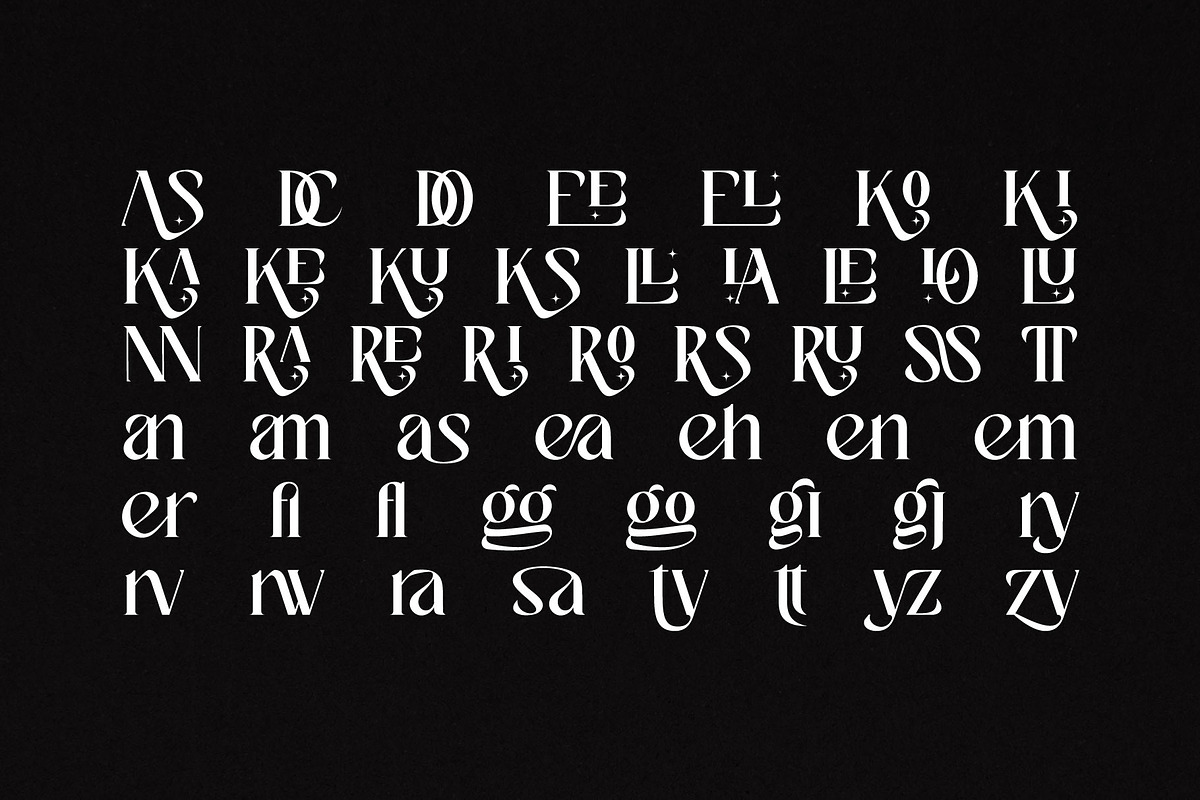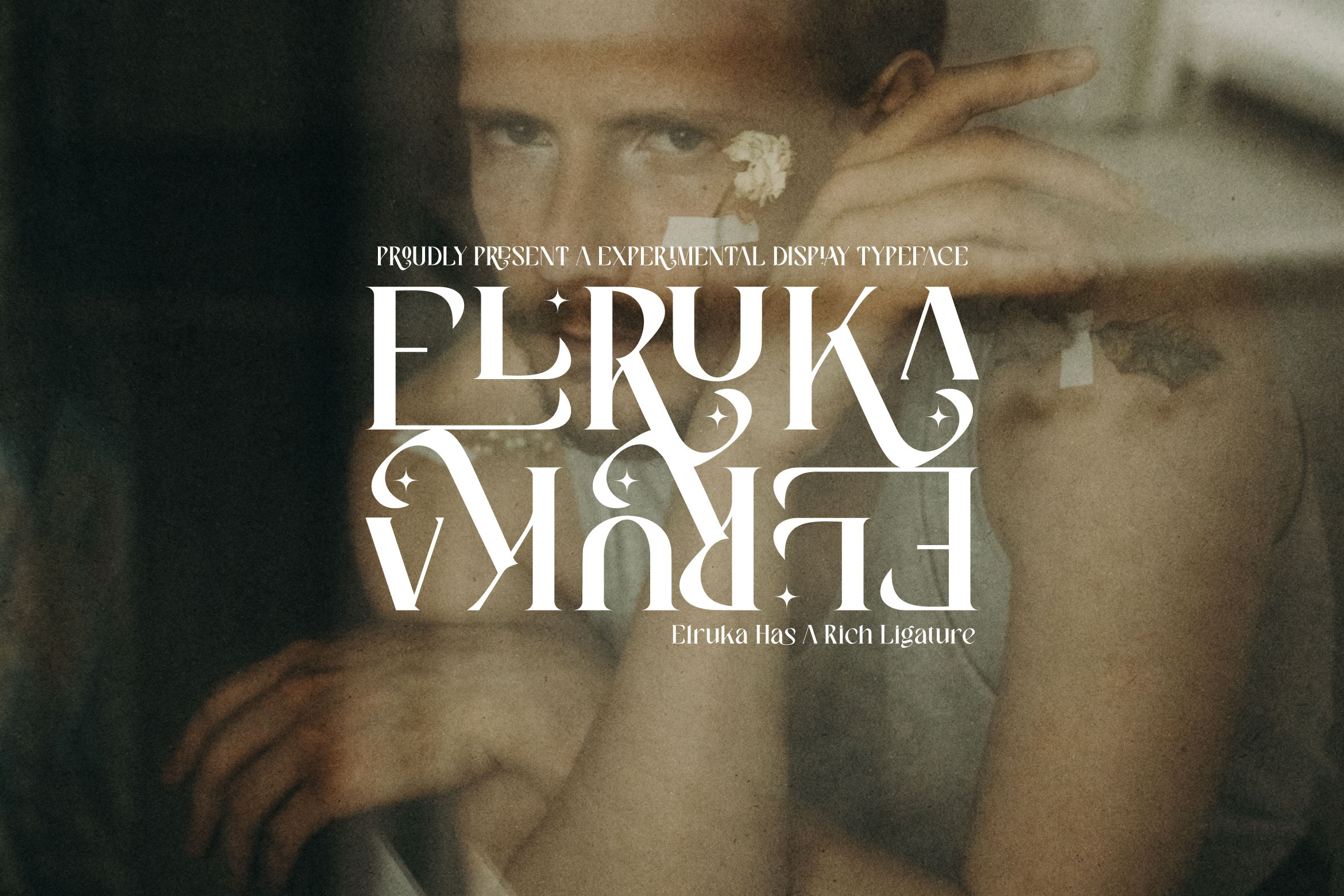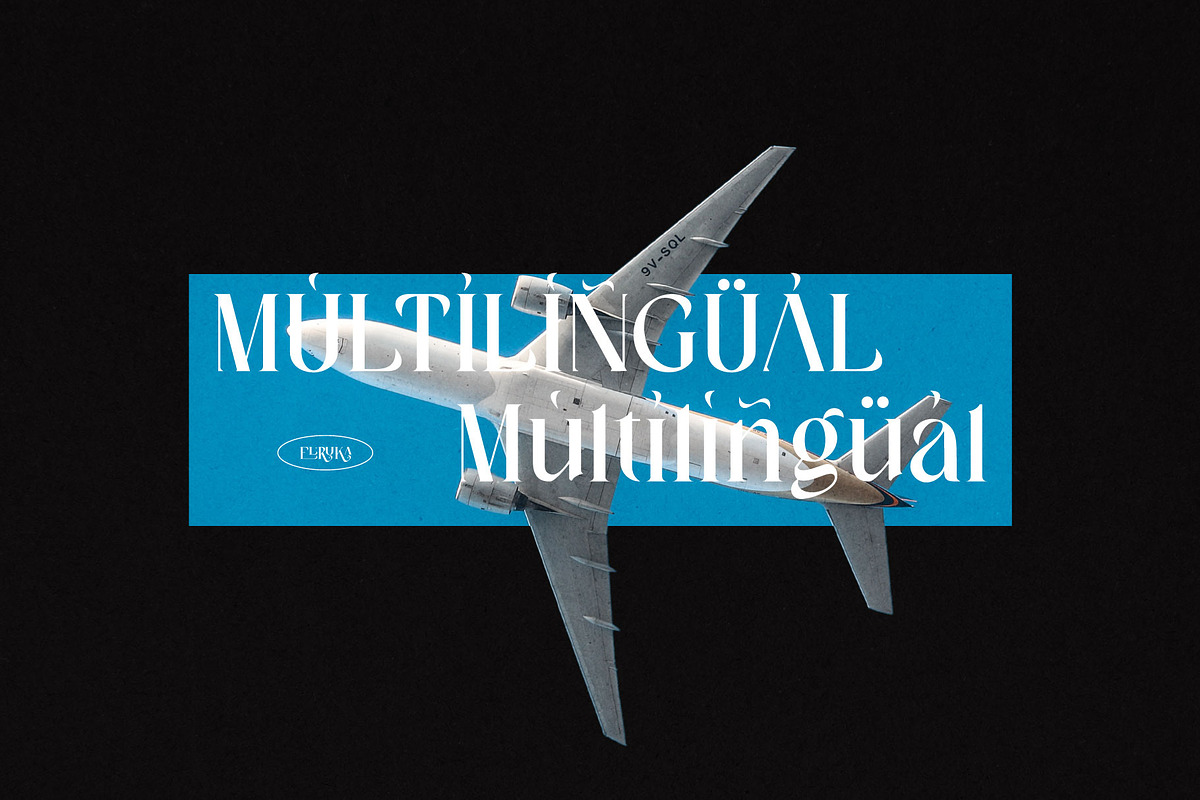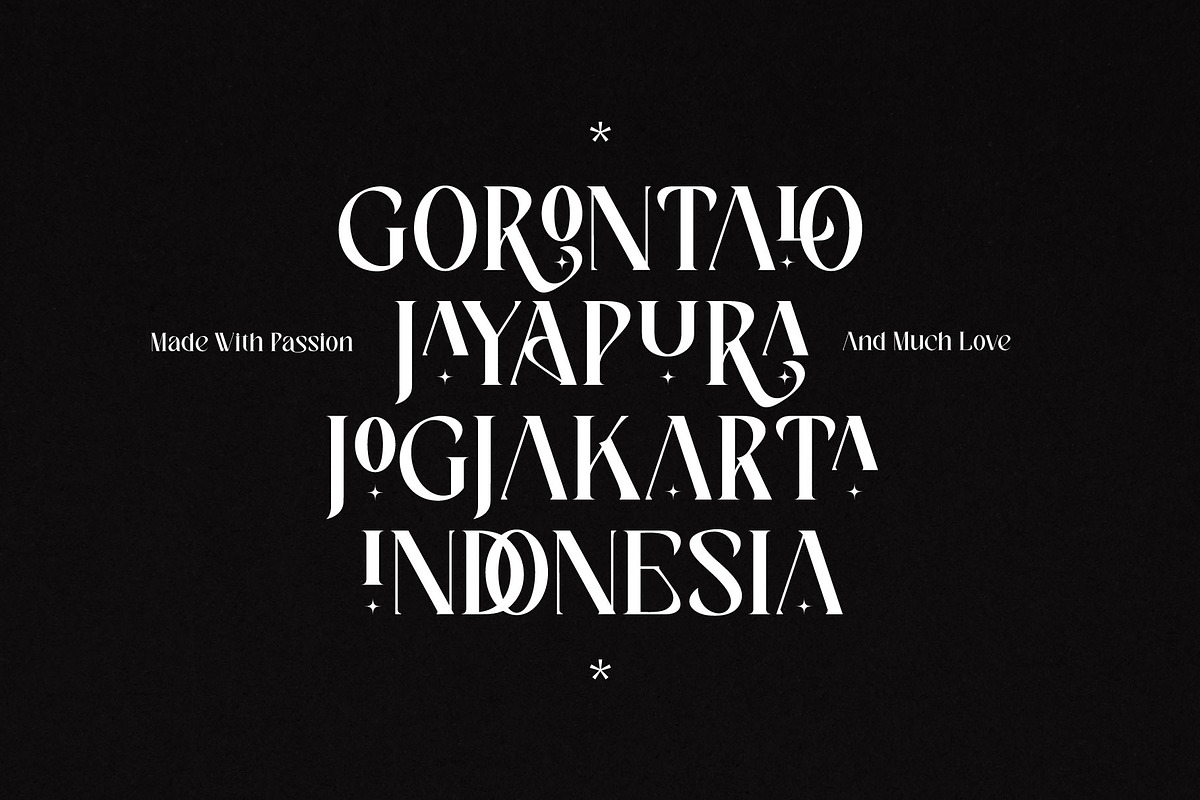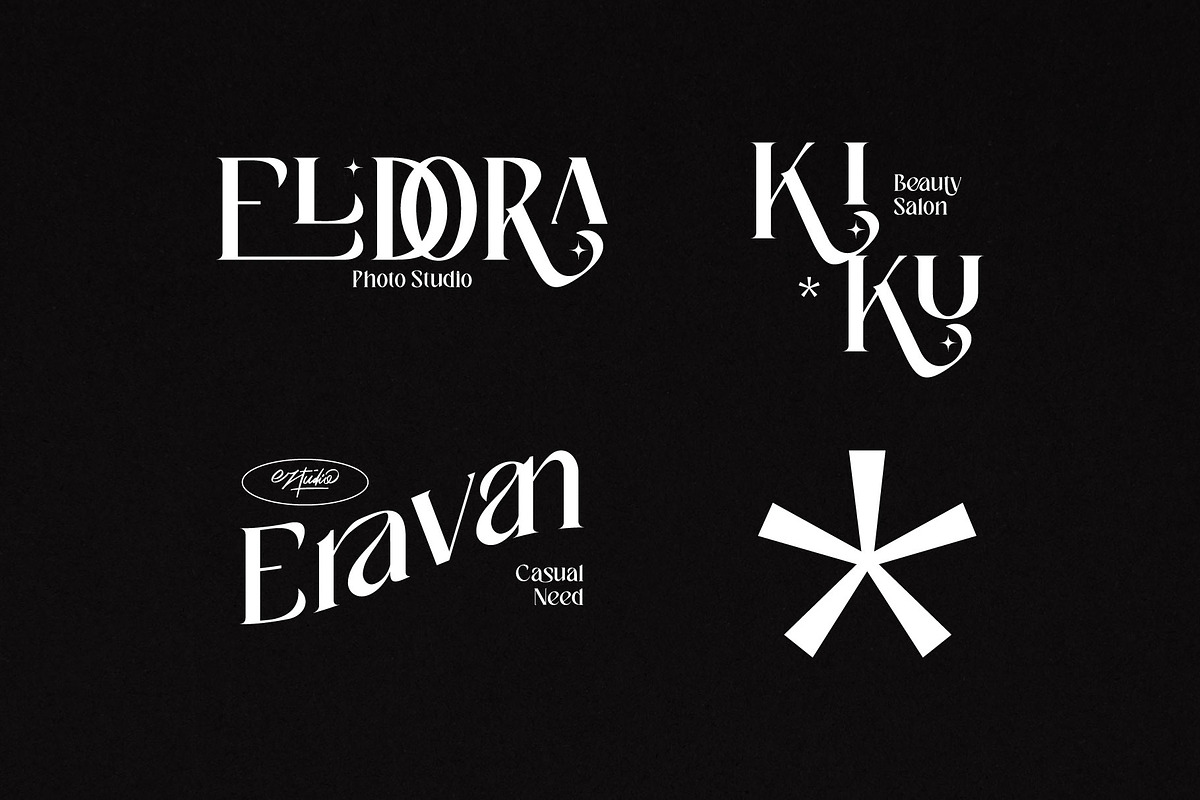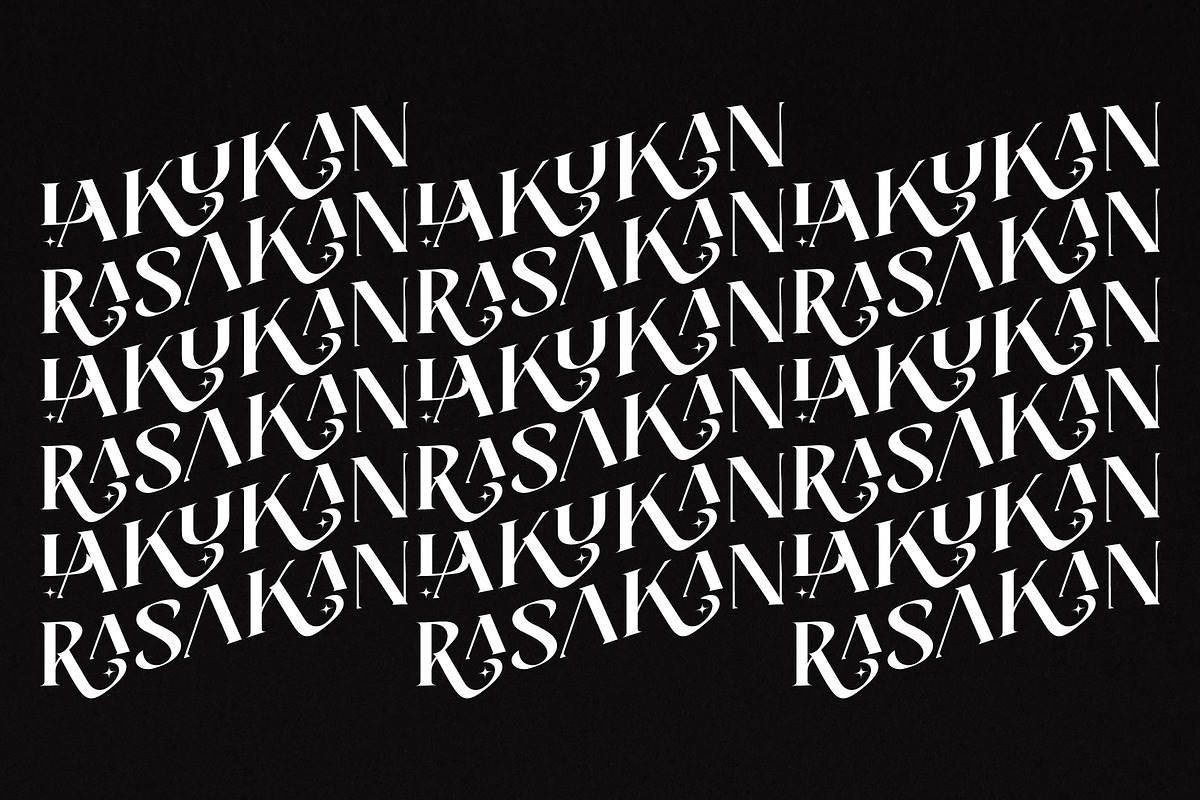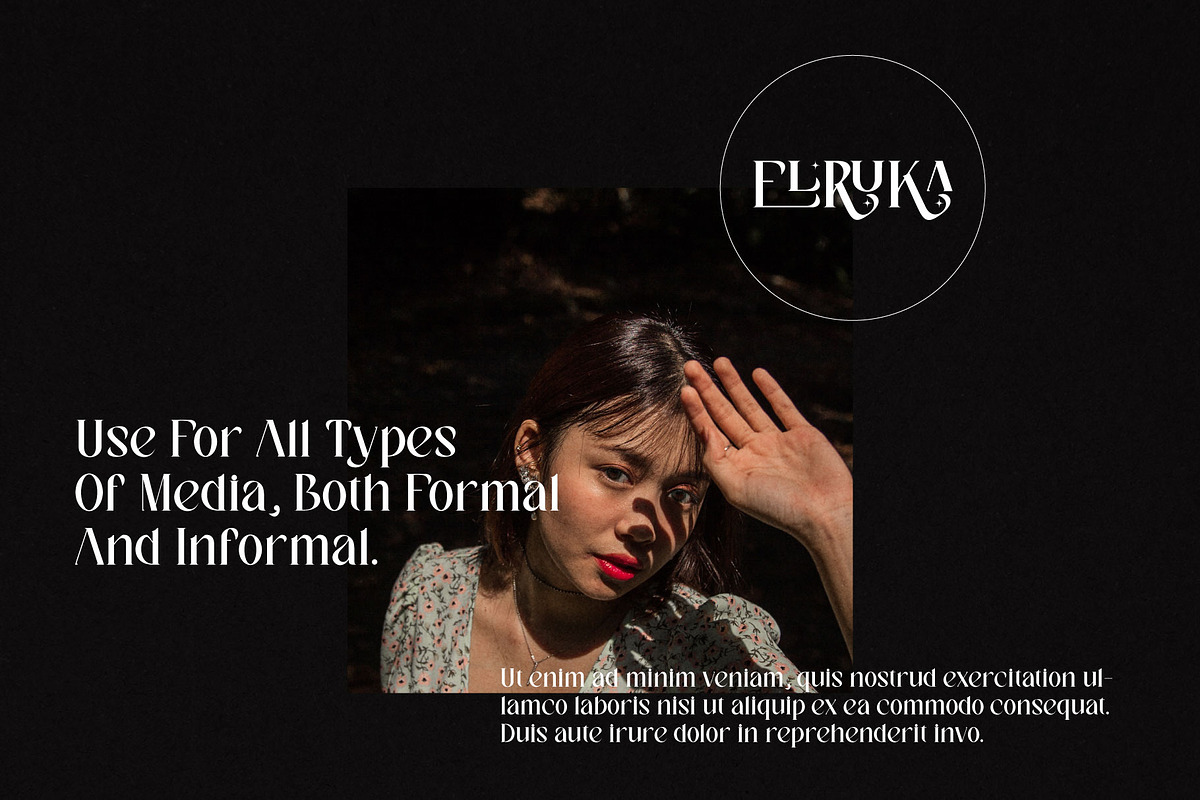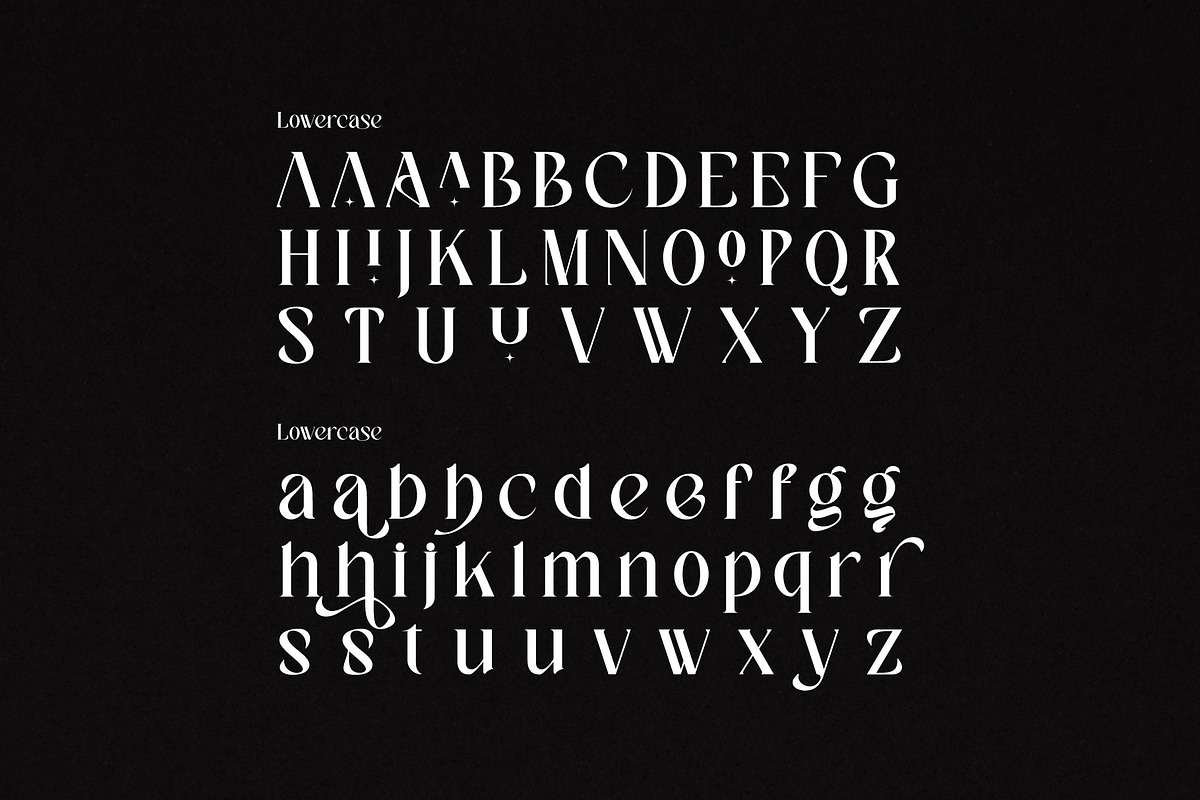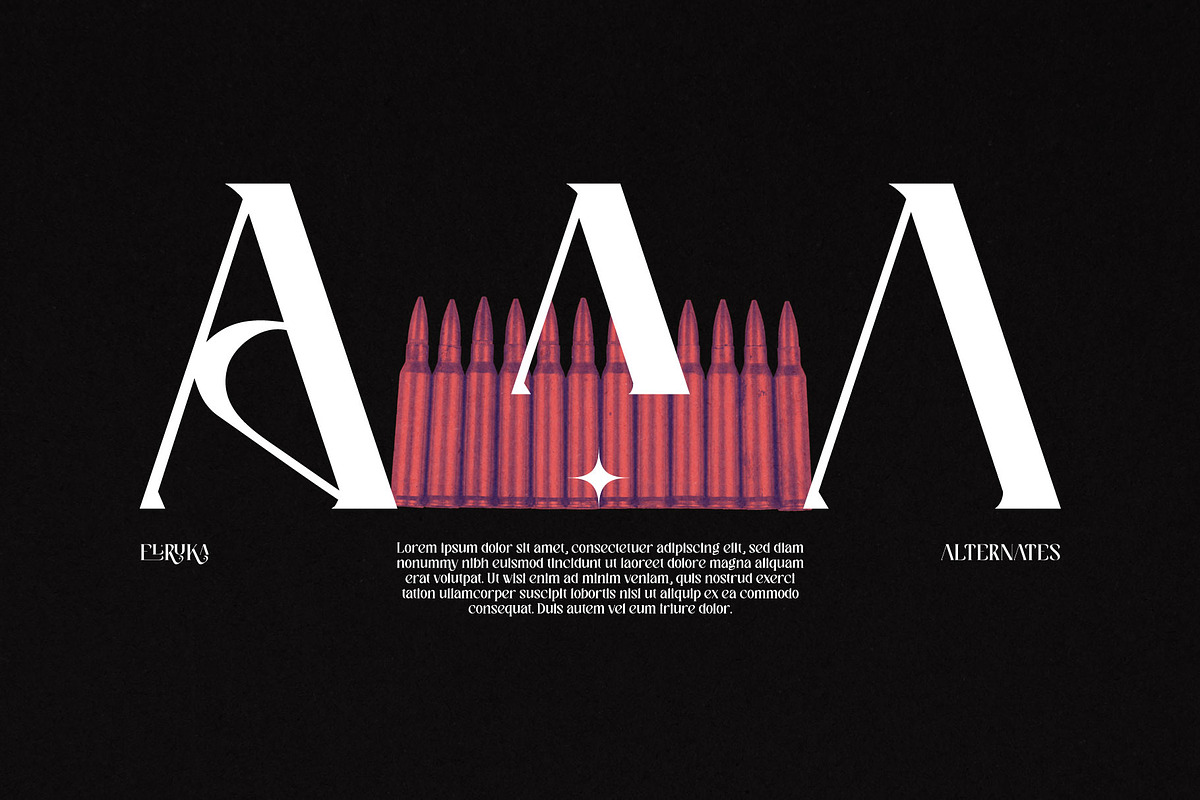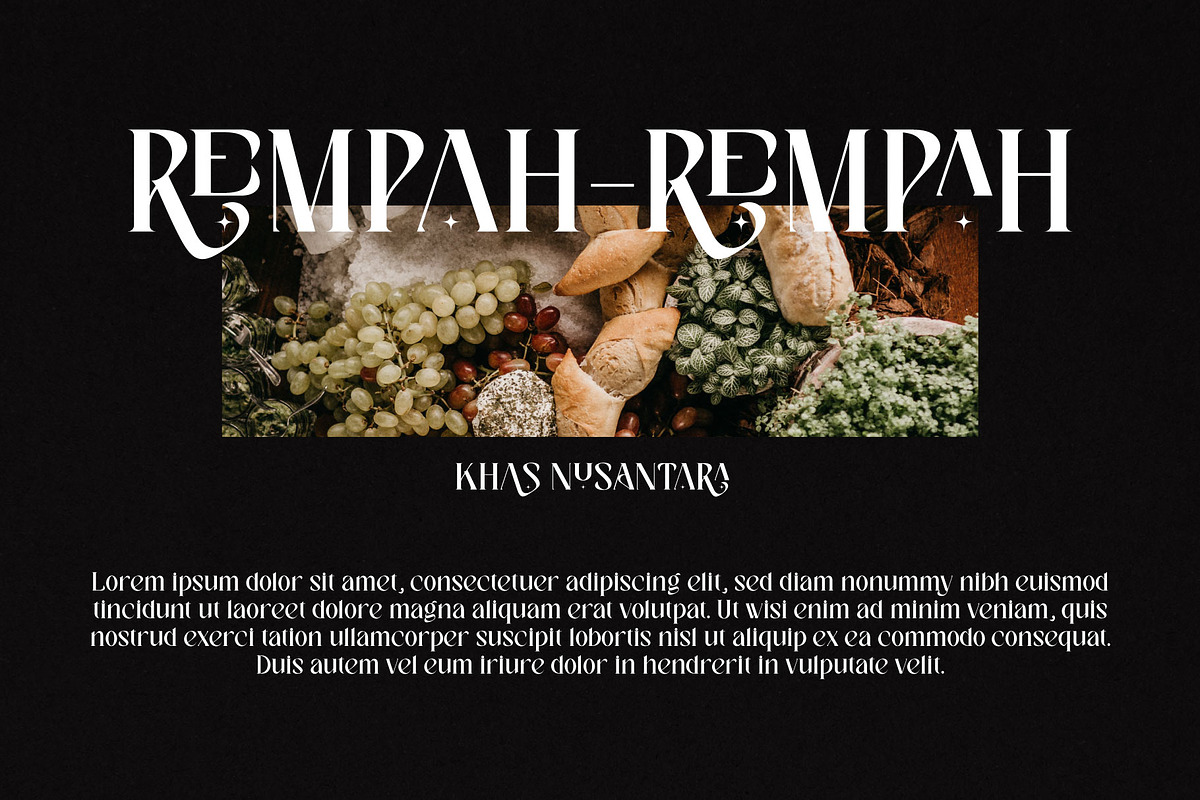
Elruka - Display Serif Font
Elruka is a decorative font. It has a classy and modern look that can be used for logos, branding, invitations, stationery, wedding designs, social media posts, and much more!
The Elruka font includes:
- Uppercase Letters
- Lowercase Letters
- Special Characters
- Multilingual Glyphs